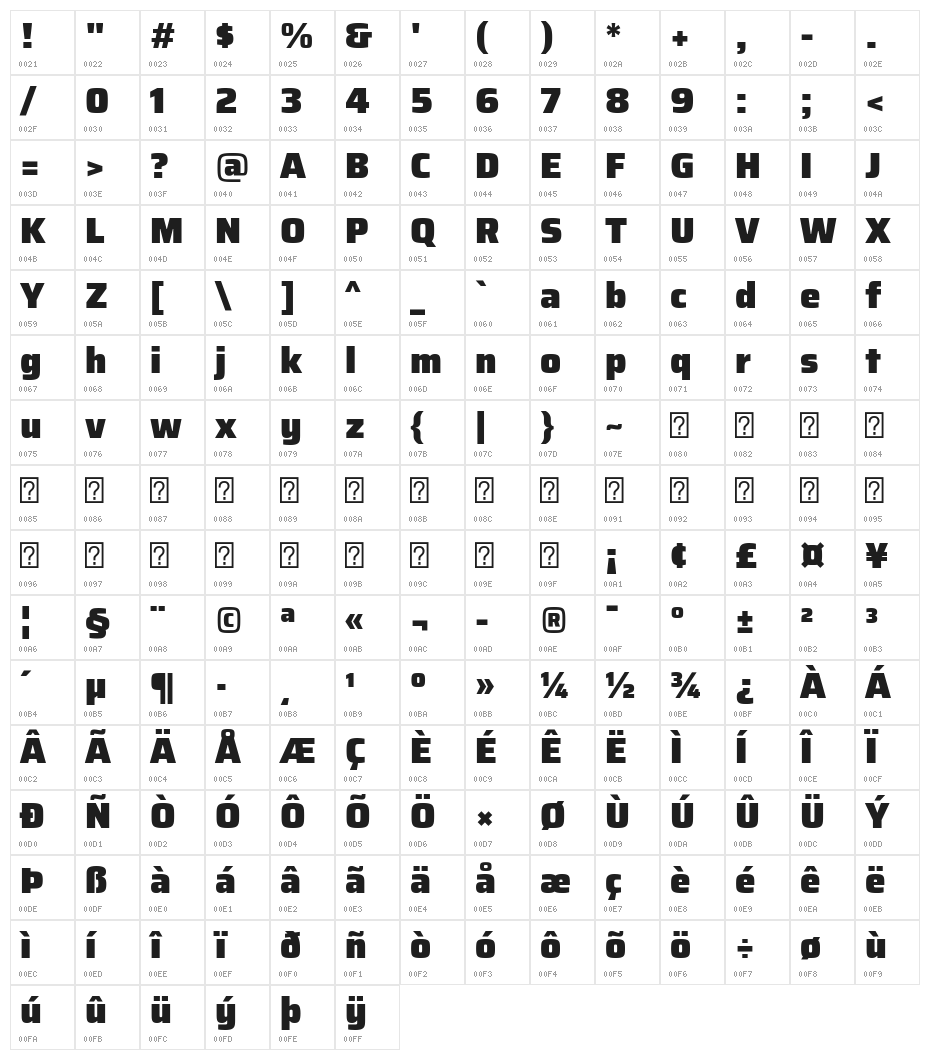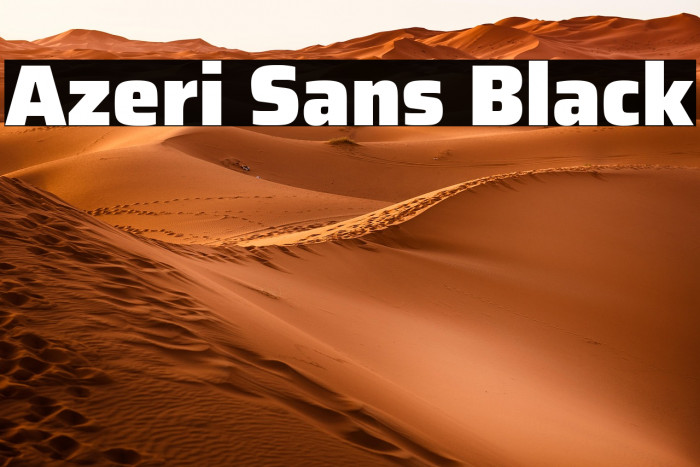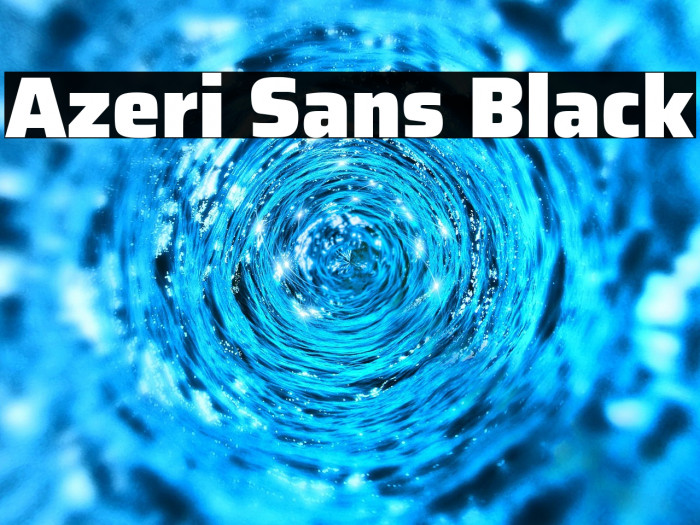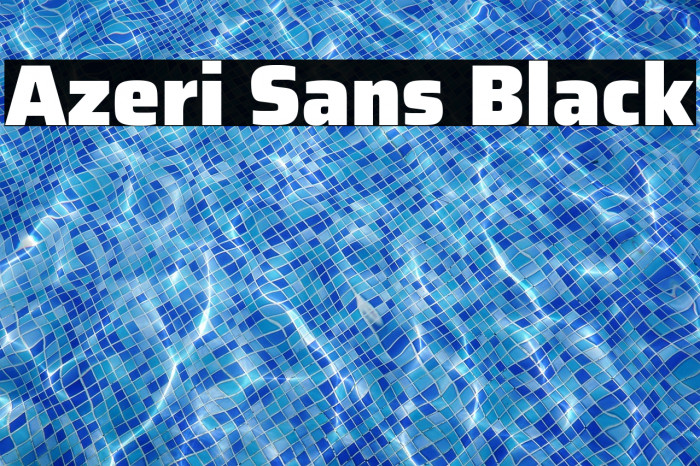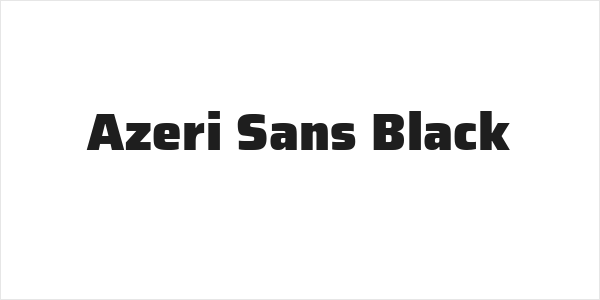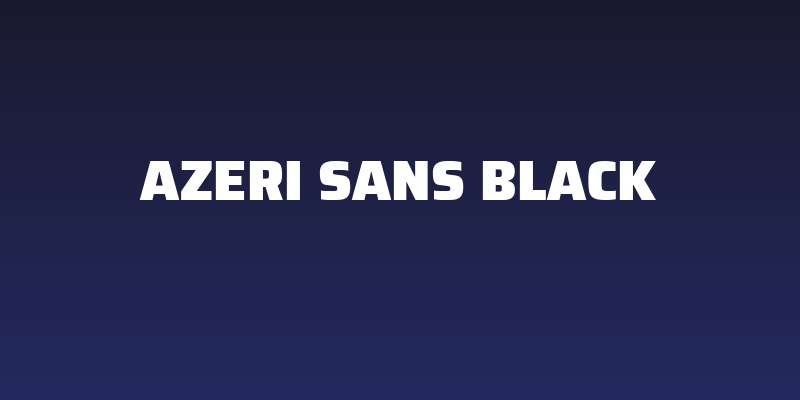
Azeri Sans Black Font
Azeri Sans Black Description
This font features a bold and impactful design, characterized by thick strokes and a strong presence. The uppercase and lowercase letters are uniformly bold, providing a sense of stability and confidence. The numbers and special characters maintain the same boldness, ensuring consistency across all elements. The font's design is straightforward and modern, making it suitable for attention-grabbing headlines and statements. Its clean lines and lack of serifs contribute to a contemporary aesthetic, while the uniform thickness of the strokes adds to its bold appearance.
| Proposed Projects | Ideal for branding, advertising, posters, and any project requiring a strong visual impact. |